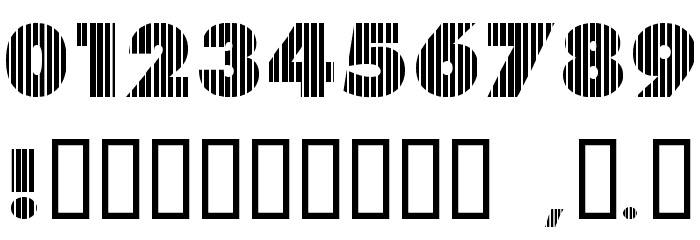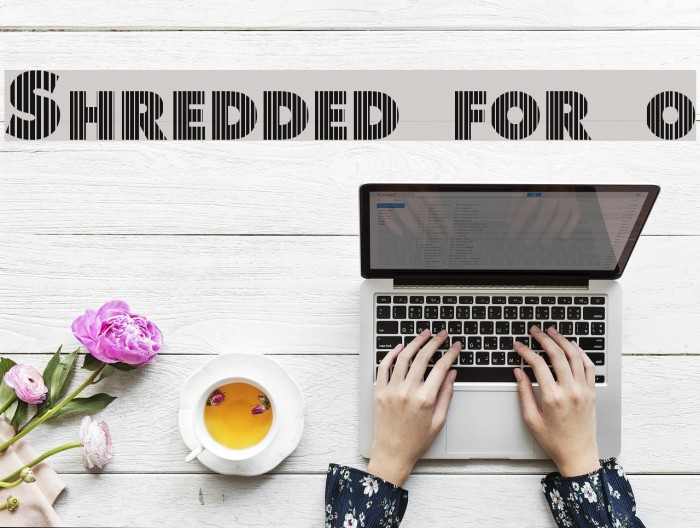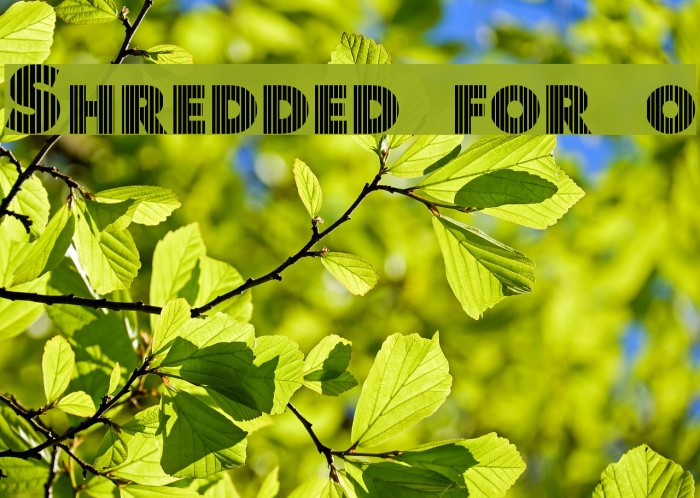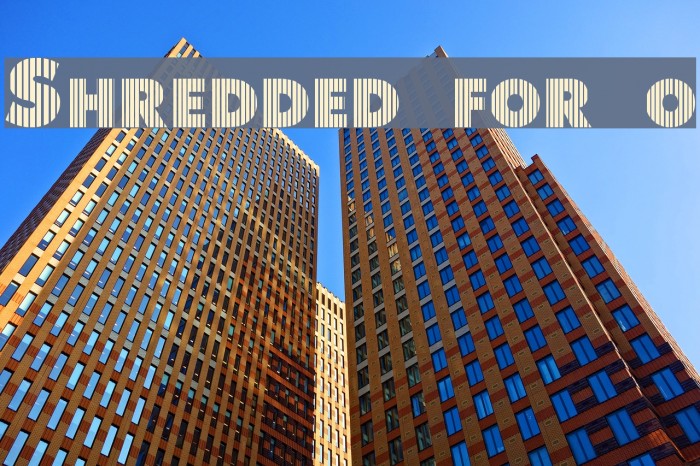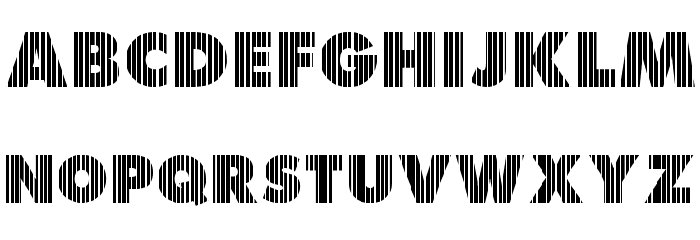
Shredded for you Font
Shredded for you Description
This font features a bold and striking design with vertical lines running through each character, giving it a shredded or striped appearance. The uppercase and lowercase letters, as well as numbers and special characters, maintain a consistent pattern of these lines, creating a cohesive and visually impactful style. The font's unique texture adds a dynamic and edgy feel, making it suitable for projects that require a bold statement. The characters are evenly spaced, ensuring readability while maintaining the decorative effect. This font's distinctive style makes it ideal for creative and modern design projects.
| Proposed Projects | Ideal for posters, album covers, branding, and any design needing a bold, modern touch. |